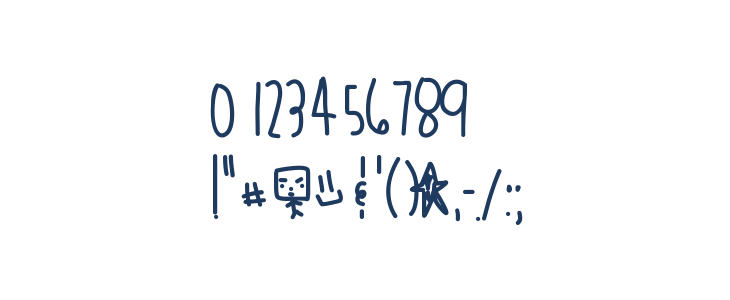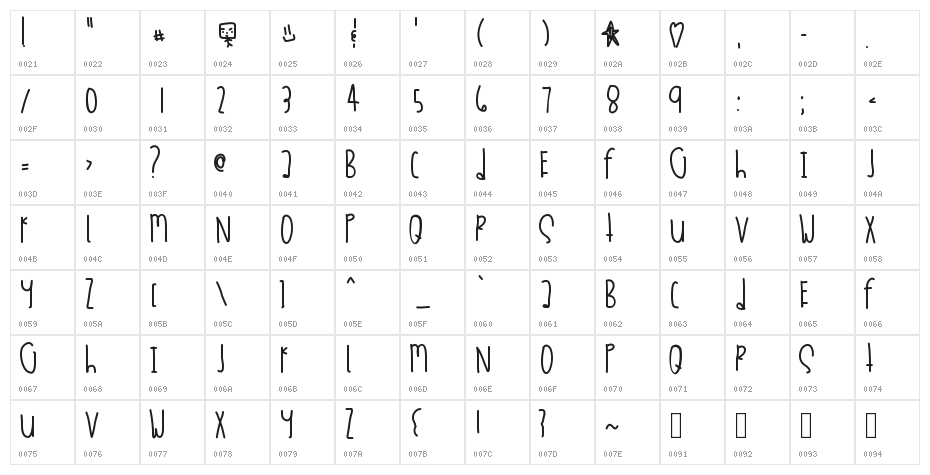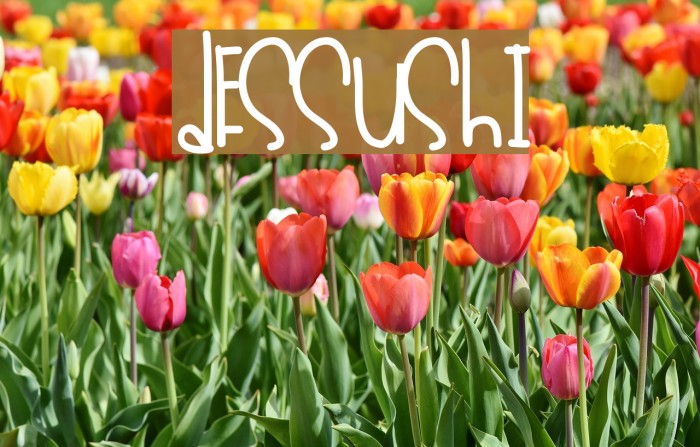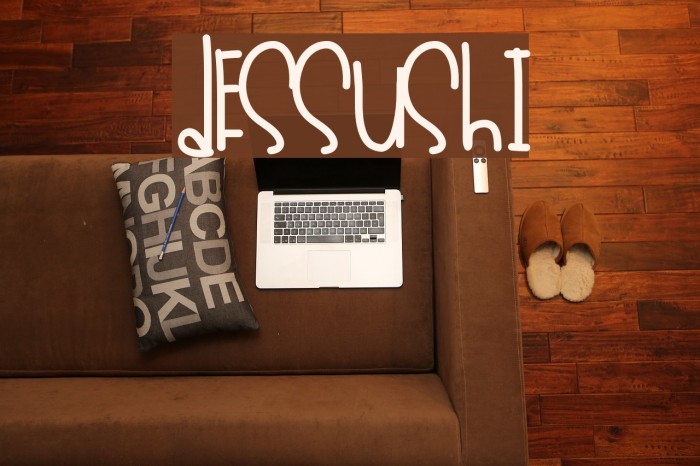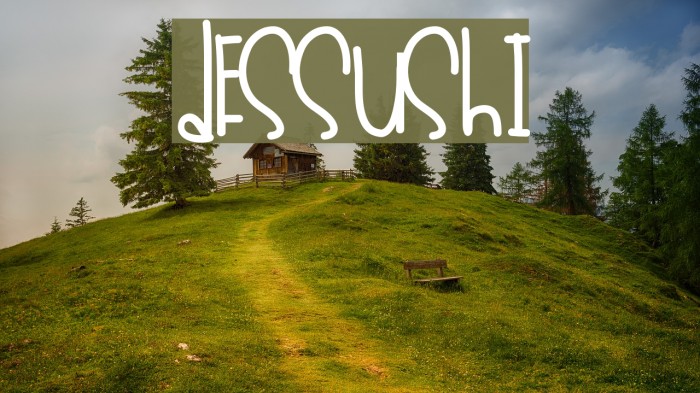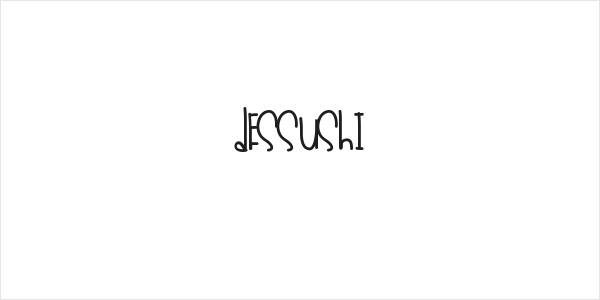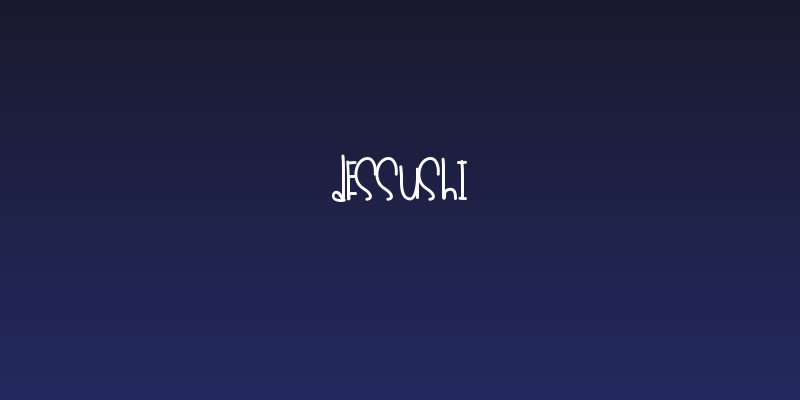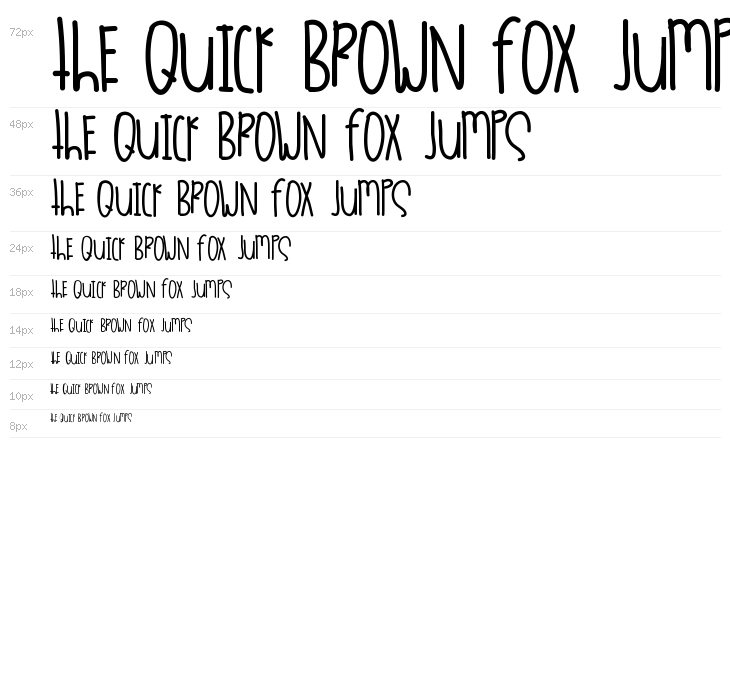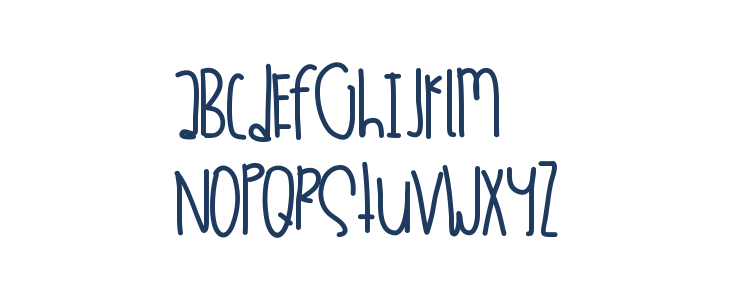
Dessushi Font
Dessushi Description
This playful and quirky font features tall, narrow letters with a hand-drawn aesthetic. The characters have a consistent stroke width, giving them a uniform appearance. The uppercase letters are slightly taller than the lowercase, maintaining a whimsical style. Numbers and special characters follow the same playful design, adding to the font's charm. The overall look is casual and friendly, making it suitable for creative projects.
| Proposed Projects | Ideal for children's books, greeting cards, playful branding, and creative posters. |